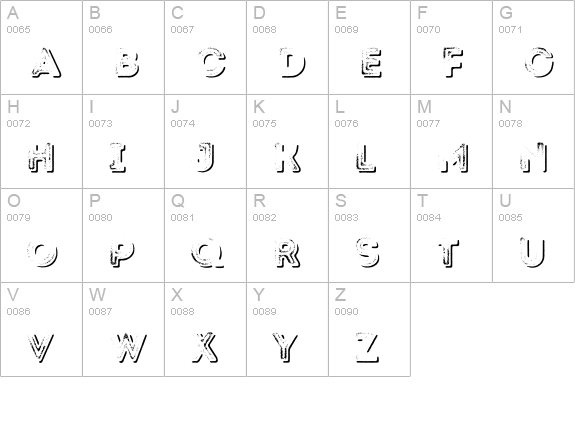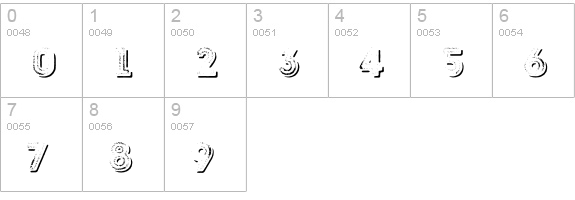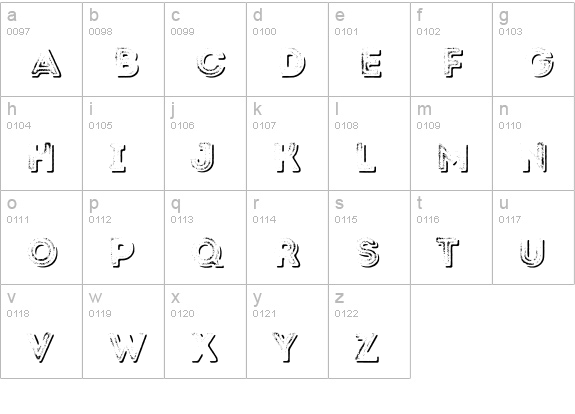
Intro Rust G Fill 2 Shade Font Details
Intro Rust G Fill 2 Shade font is a striking display font that exudes a sense of raw energy and urban flair. Its bold, textured design makes it perfect for creating eye-catching headlines, logos, and branding materials. The unique shading adds depth and dimension to your text, giving it a dynamic and modern look. What makes Intro Rust G Fill 2 Shade font even more appealing is that it is available for free download at FontsMarket.com. This means that you can easily access this versatile font for your projects without any cost involved. Whether you're working on a graphic design project, advertising campaign, or personal creative endeavor, Intro Rust G Fill 2 Shade font is sure to make a bold statement and captivate your audience. Download it today and unleash your creativity with this exciting typeface.